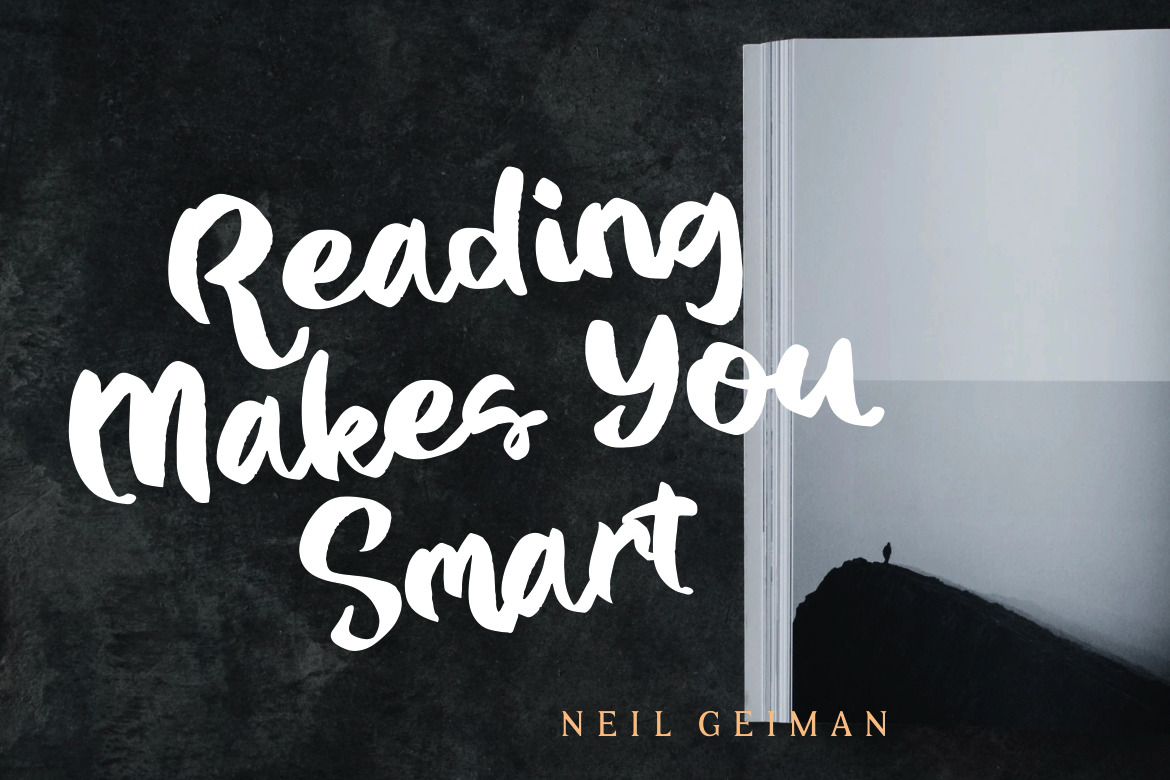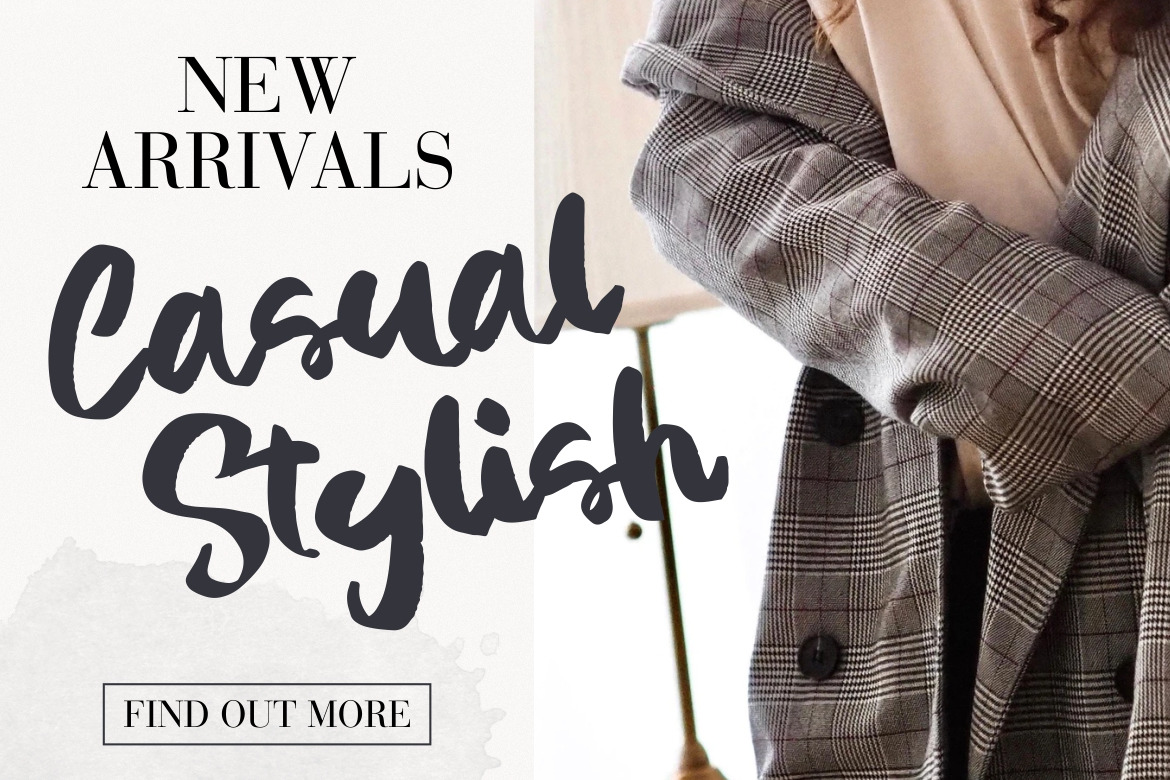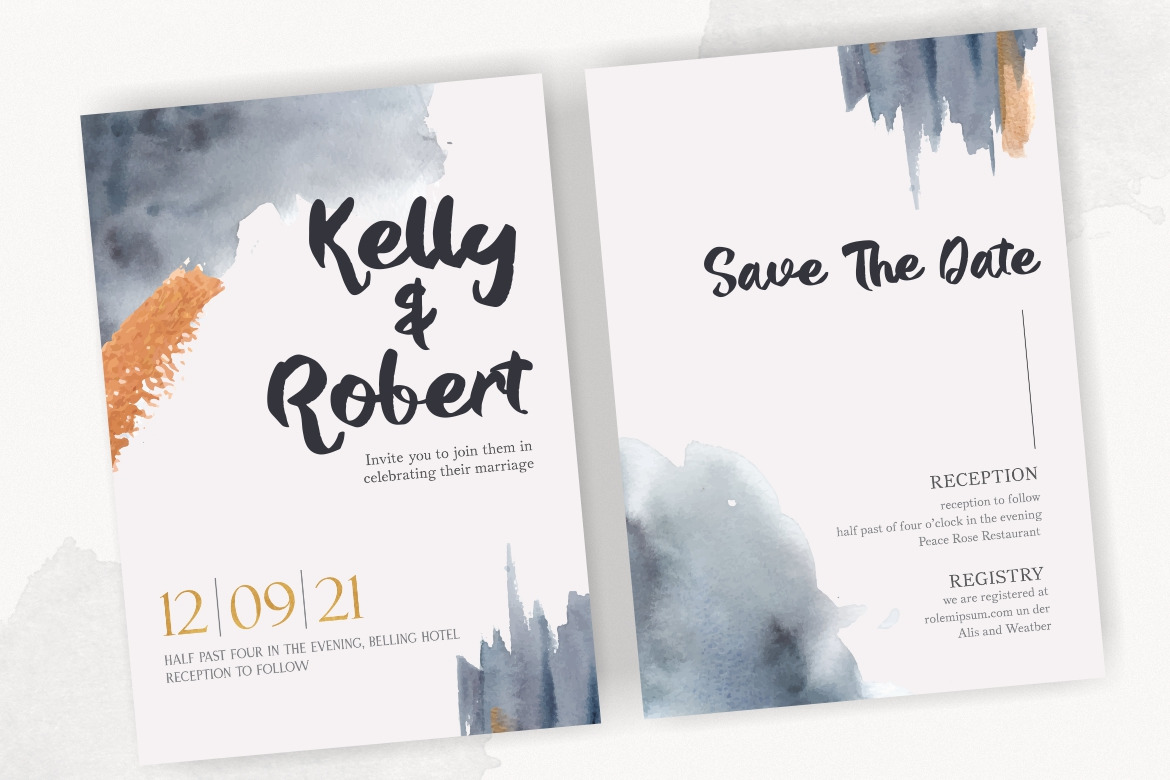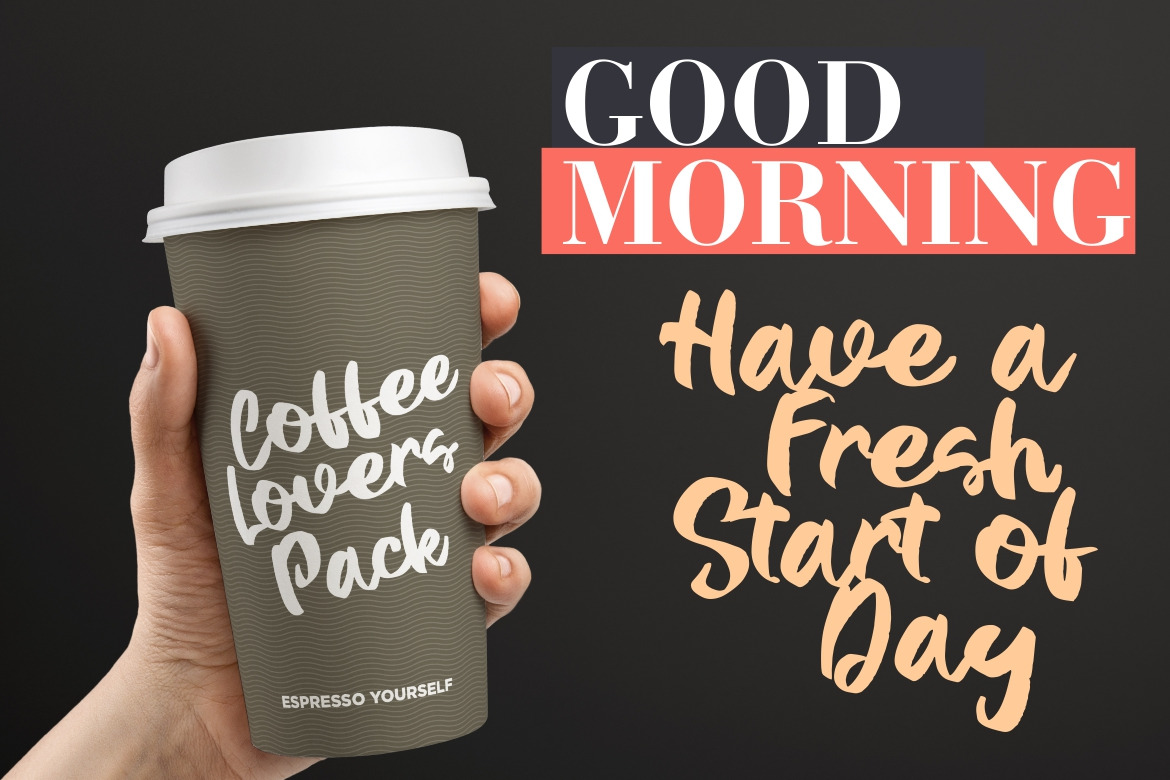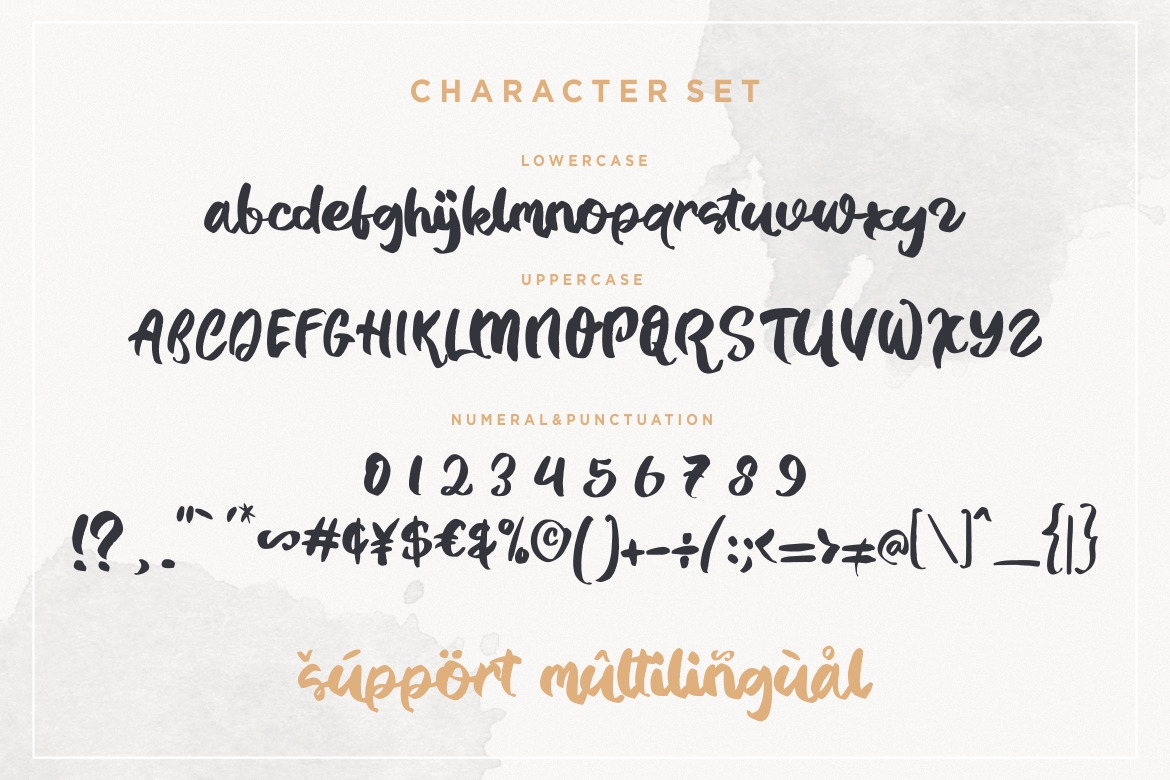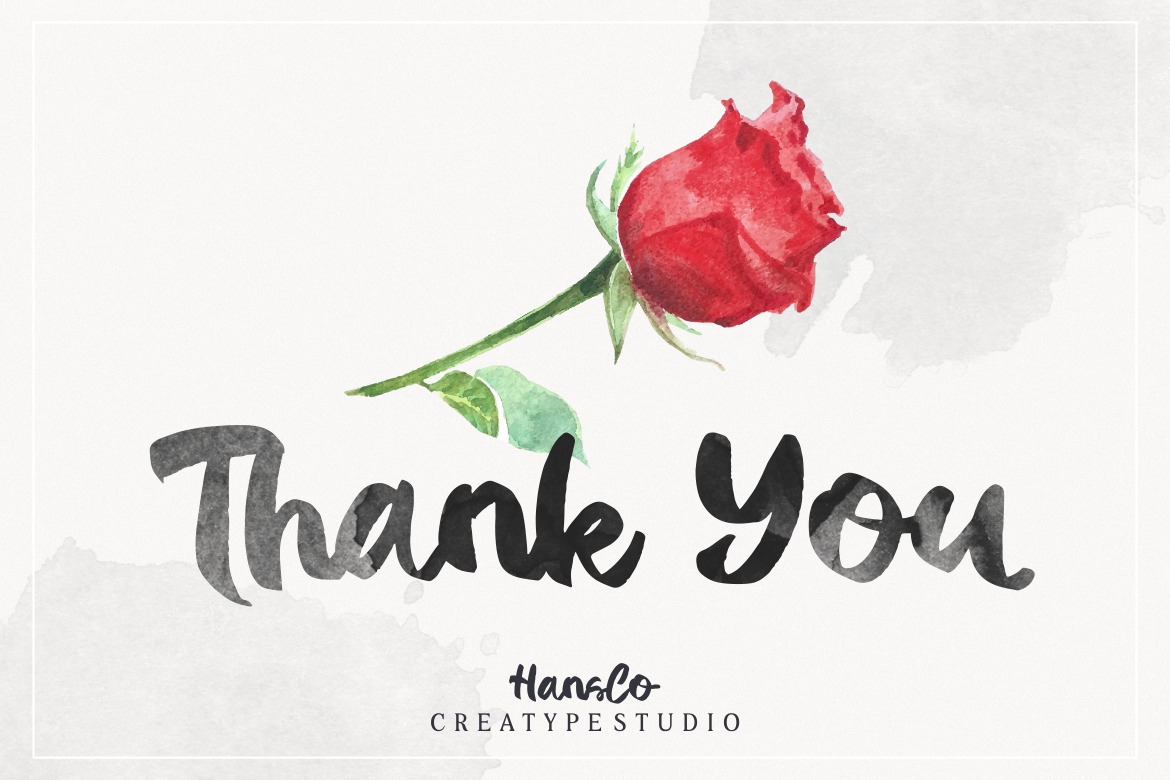
Castel Font
Castel Font is handwritten font made with natural watercolor texture. The solid texture to make it look modern and simple. Castel is suitable for logo, product branding, Wedding invitation, Quotes, Flyer, Magazine, Instagram template or for text overlay to any background image.